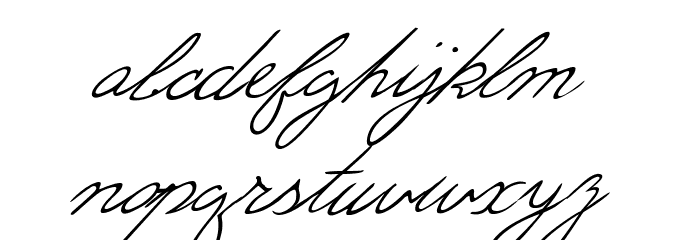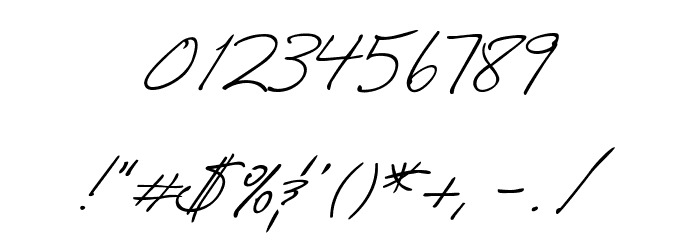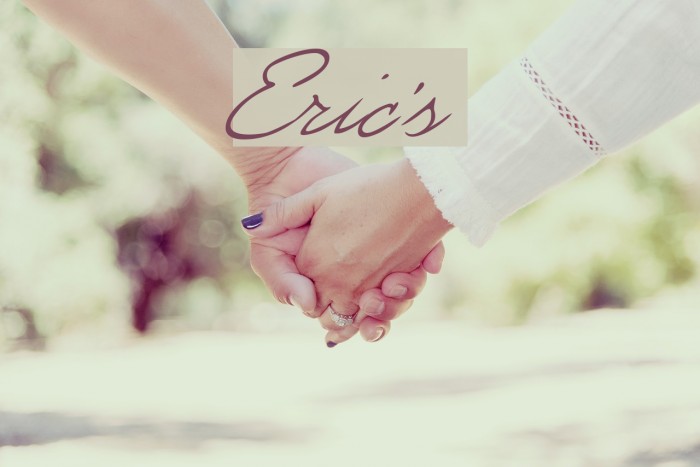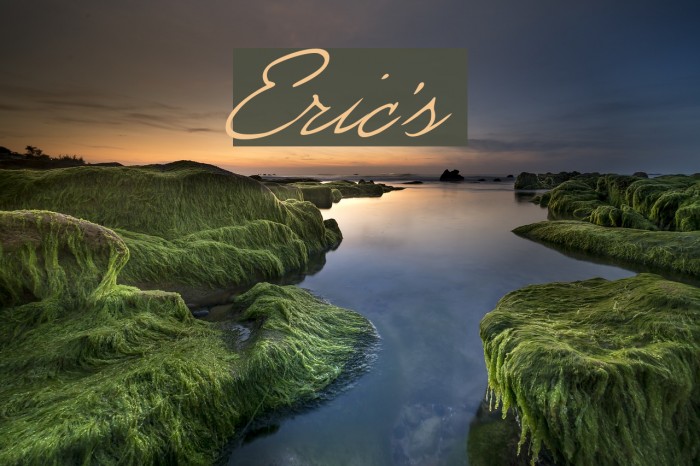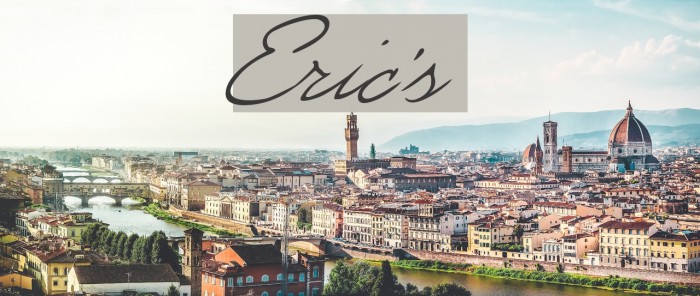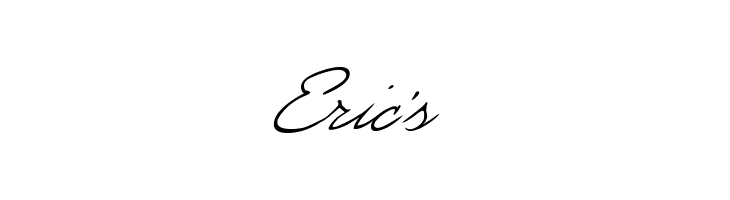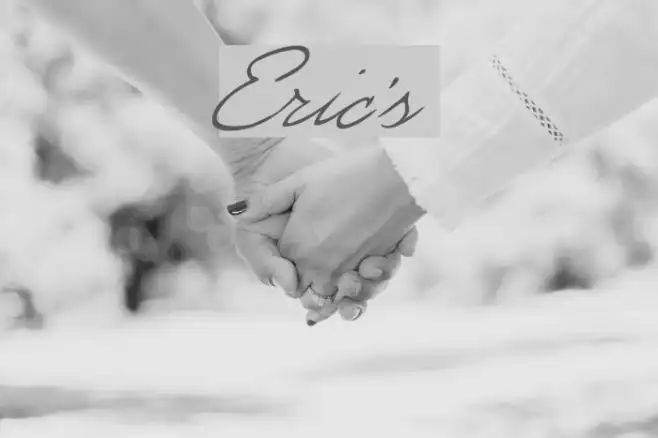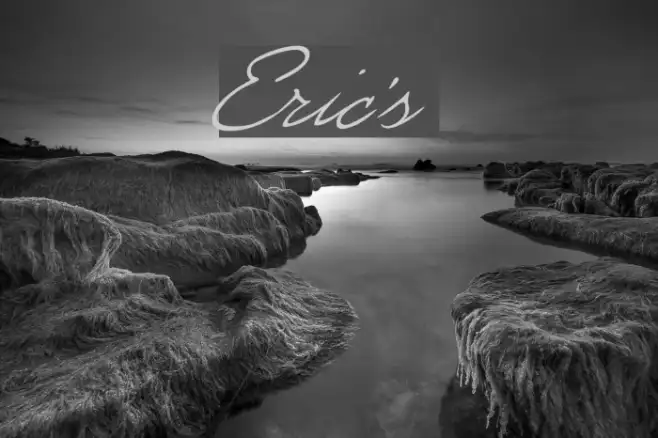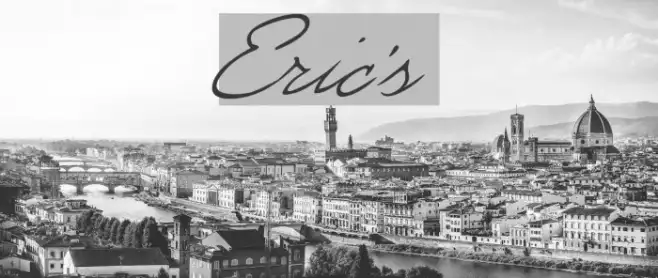
Eric's Font
This font exudes elegance and fluidity, characterized by its cursive, handwritten style. The letters are connected, creating a seamless flow that mimics natural handwriting. The strokes are smooth and consistent, with a slight slant to the right, enhancing its graceful appearance. The uppercase letters are ornate, with intricate loops and swirls, while the lowercase letters maintain a simpler, yet equally elegant form. The numerals and special characters are designed to match the overall aesthetic, ensuring a cohesive look. This font is perfect for projects that require a personal touch, such as invitations, greeting cards, and branding materials.
An elegant, cursive handwritten font with smooth, connected strokes.
- Proposed Projects: Ideal for wedding invitations, personal branding, greeting cards, and elegant stationery.
- Overall Style: Elegant, Handwritten
- Use Case: Invitations, Personal branding, Greeting cards